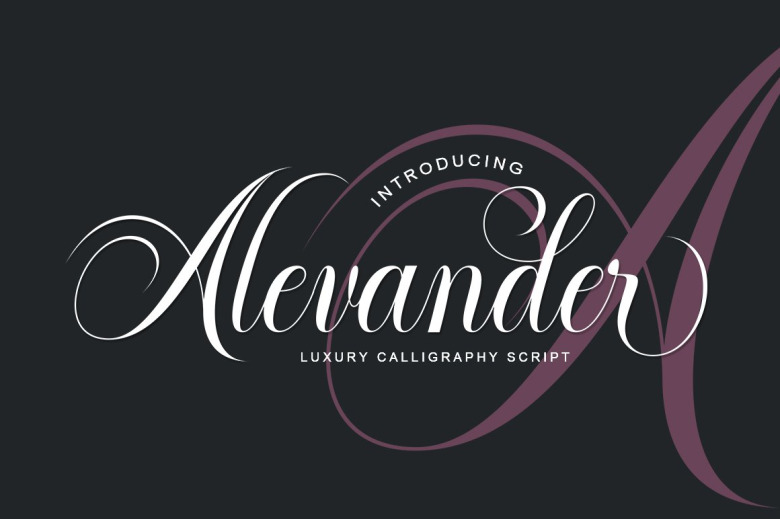
Alevander Font
Alevander is a classic calligraphy script font. Archivo Narrow – Basic / italic Here is provided by a gorgeous Classic font. Fiora Modern Swash Font And Write is a typeface with this mature style this font is great for your work such as logos, branding projects, homeware designs, product packaging, mugs, quotes, posters, shopping bags, logos, t-shirts, book covers, business cards, invitation, greeting cards, and all your corporate design. all other beautiful projects.
Alevander Calligraphy Script Font